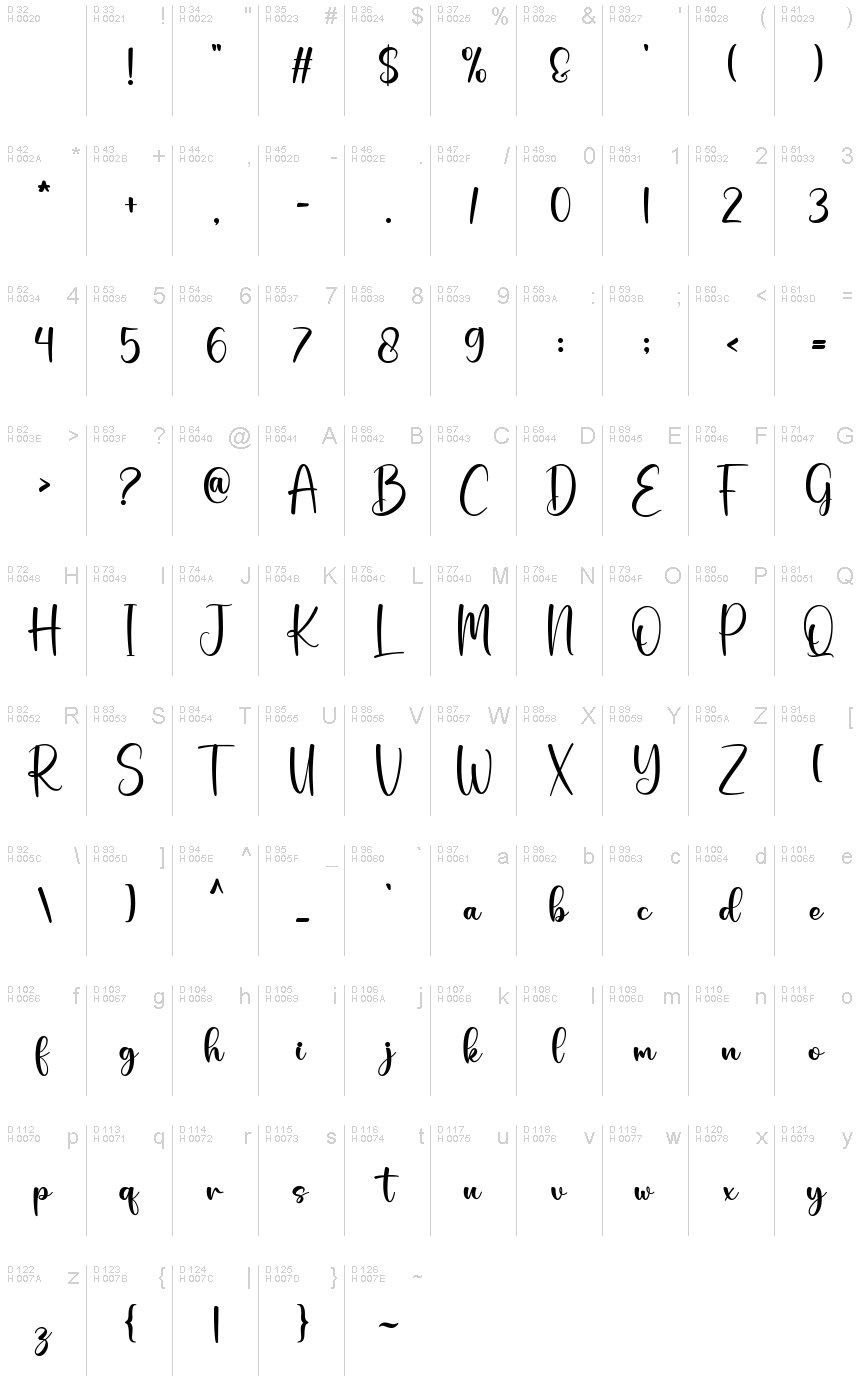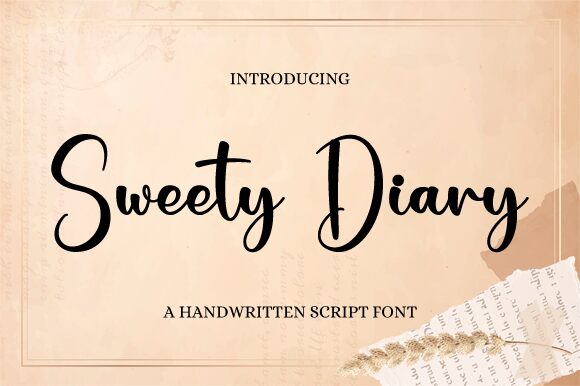
Sweety Diary
Sweety Diary, a captivating handwritten font designed by Nirmala Creative, exudes a delightful and whimsical charm. This script-inspired typeface boasts organic, fluid strokes that seamlessly flow across the page, evoking a sense of warmth and effortless elegance. The subtle variations in line thickness and the playful ligatures throughout the glyphs add depth and personality, elevating the overall aesthetic.
Sweety Diary's versatility shines through, making it a versatile choice for a wide range of design projects. From greeting cards and invitations to social media graphics and product packaging, this font's timeless appeal and charismatic qualities can elevate the visual identity of any brand or creative endeavor. Its whimsical charm and inherent readability make it an excellent selection for projects that aim to convey a sense of heartfelt expression, personal touch, or nostalgic charm.